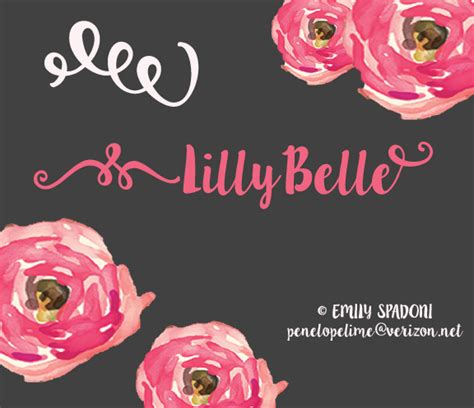
Type | (bar) after any lowercase letter to add a swirl on the end of a word. Lilly belle font download is available free from fontget. Download lillybelle font for free and find more free fonts like lillybelle font. Commercial users must purchase a license. Moreover, using such fine quality font for short text passages and companies taglines is the best idea. Style of lilly belle font free. Donations tobelle script are welcome via paypal at email protected we can accept any amount…god bless. A license is required for any commercial applications. We have a huge selection of free fonts for windows & mac. Lilly belle is a free font for personal use created by emily spadoni. Please enter your email address receive a free font daily from fonts101.com in your email! A license is required for any commercial applications. Free download of stage font.
Lilly belle is a free font for personal use created by emily spadoni. Lilly belle font is a famous various font family that comes in highly legible text forms. Need a harry potter font for your potterhead's birthday invitation? For commercial use please contact me, or send donatio. Lilly belle font is a famous various font family that comes in highly legible text forms.
1,022,095 downloads (143 yesterday) 2 comments demo. Fonts lilly belle in script category. Lilly belle font download is available free from fontget. To enjoy the full aesthetics of this font please check the kerning for fonts option under the format menu. Commercial users must purchase a license. Lillybelle lillybelle_2.ttf 159 kb | commercial users must purchase a license. That script font possesses great attractive cursive layouts with super cool truetype features. We have a huge selection of free fonts for windows & mac. Free download of stage font. Linotype belle is a trademark of linotype gmbh and may be registered in certain jurisdictions. Download the lilly belle font by emily spadoni. Commercial users must purchase a license. Donations tobelle script are welcome via paypal at email protected we can accept any amount…god bless.
Free download of belle script font. Type | (bar) after any lowercase letter to add a swirl on the end of a word. That script font possesses great attractive cursive layouts with super cool truetype features. Fonts lilly belle in script category. Free download of stage font.
· lily script one font. To enjoy the full aesthetics of this font please check the kerning for fonts option under the format menu. Type | (bar) after any lowercase letter to add a swirl on the end of a word. Lilly belle font is a famous various font family that comes in highly legible text forms. Donations tobelle script are welcome via paypal at email protected we can accept any amount…god bless. Lillybelle lillybelle_2.ttf 159 kb | commercial users must purchase a license. Commercial users must purchase a license. Lilly belle font is a famous various script font family that comes in highly legible text forms, designed by emily spadoni.
Lilly belle is a script type font that can be used on any device such as pc, mac, linux, ios and android.